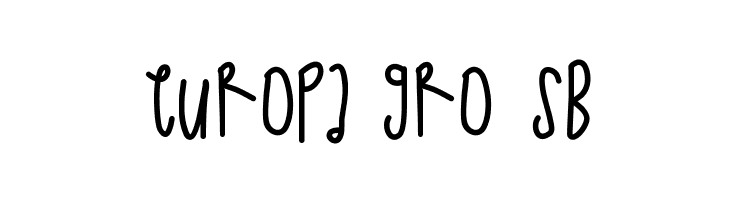
( Fonts by twinletter )
A bold, decorative font with unique embellishments and a playful edge.
A playful, bold script font with a handwritten style.
( Fonts by Nabila )
An elegant, cursive font with a sophisticated, handwritten style.
A playful, handwritten font with smooth curves and a casual style.
A bold, decorative slab serif font with playful curls and a vintage-modern appeal.
( Fonts by twinletter )
A bold, geometric font with a modern and edgy style.
A bold, angular font with a geometric and modern style.
Bold geometric sans-serif with rounded forms and modern style.
A modern, geometric font with a futuristic and structured design.
A bold, dripping font perfect for horror-themed designs.
( Fonts by Klakon Studio )
Elegant script font with a calligraphic touch.
( Fonts by Maulana Creative )
Elegant handwritten script with connected, flowing strokes.
( Fonts by Alexandra Cardenas )
A playful and flowing script font with a handwritten style.
A playful, bold handwritten font with a casual and dynamic style.
( Fonts by Beatriz Loducca )
A playful, hand-drawn font with tall, narrow characters and a whimsical style.
( Fonts by Bangkit Tri Setiadi )
A playful, bold font with a hand-drawn, dynamic style.
A playful, hand-drawn font with bold, rounded characters.
A playful and whimsical design featuring cartoonish animal faces with bold, rounded features.
A dynamic and flowing script font with elegant curves and smooth transitions.
( Fonts by Luis Angel Uribe - luisangeluribe.wordpress.com )
A playful, hand-drawn font with a whimsical and casual style.
( Fonts by Luis Angel Uribe - luisangeluribe.wordpress.com )
A whimsical, decorative font with playful, creature-like embellishments.
( Fonts by Luis Angel Uribe - luisangeluribe.wordpress.com )
A playful, hand-drawn font with a whimsical, doodle-like style.
A graceful and elegant script font with flowing cursive strokes.
( Danilo Miguel - daniloamiguel.com/ )
A playful, hand-drawn font with dynamic strokes and artistic flair.
( www.southype.com )
A bold, geometric font with alternating outlined and filled uppercase letters.